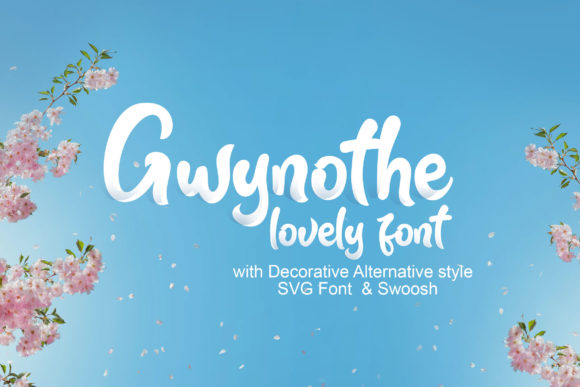
Behold Gwynothe, the enchanting script font that will awaken your creativity and transform your designs into breathtaking works of art. Its casual and friendly nature make it the perfect choice for adding a personal touch to your projects.
Imagine crafting stunning Instagram posts, captivating logos, and heartfelt invitations that exude warmth and charm. Gwynothe's unique handwritten style lends an authentic and inviting feel to every letter, making your words leap off the page.
Let your imagination soar as you explore the endless possibilities of Gwynothe. Whether you're designing elegant wedding invitations, creating personalized greeting cards, or crafting eye-catching social media graphics, this font will elevate your designs and leave a lasting impression.
Gwynothe is more than just a font; it's an artistic expression that will captivate your audience and ignite their emotions. Its flowing lines and playful curves add a touch of whimsy and delight to any project, making it a perfect choice for those seeking a font that truly stands out.
Dive into the world of Gwynothe and unleash your boundless creativity. Let this charming script font be your muse as you create designs that inspire, enchant, and leave an unforgettable mark.